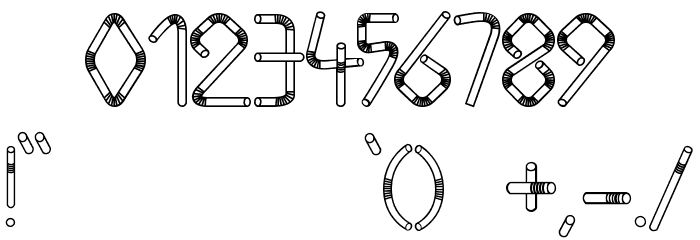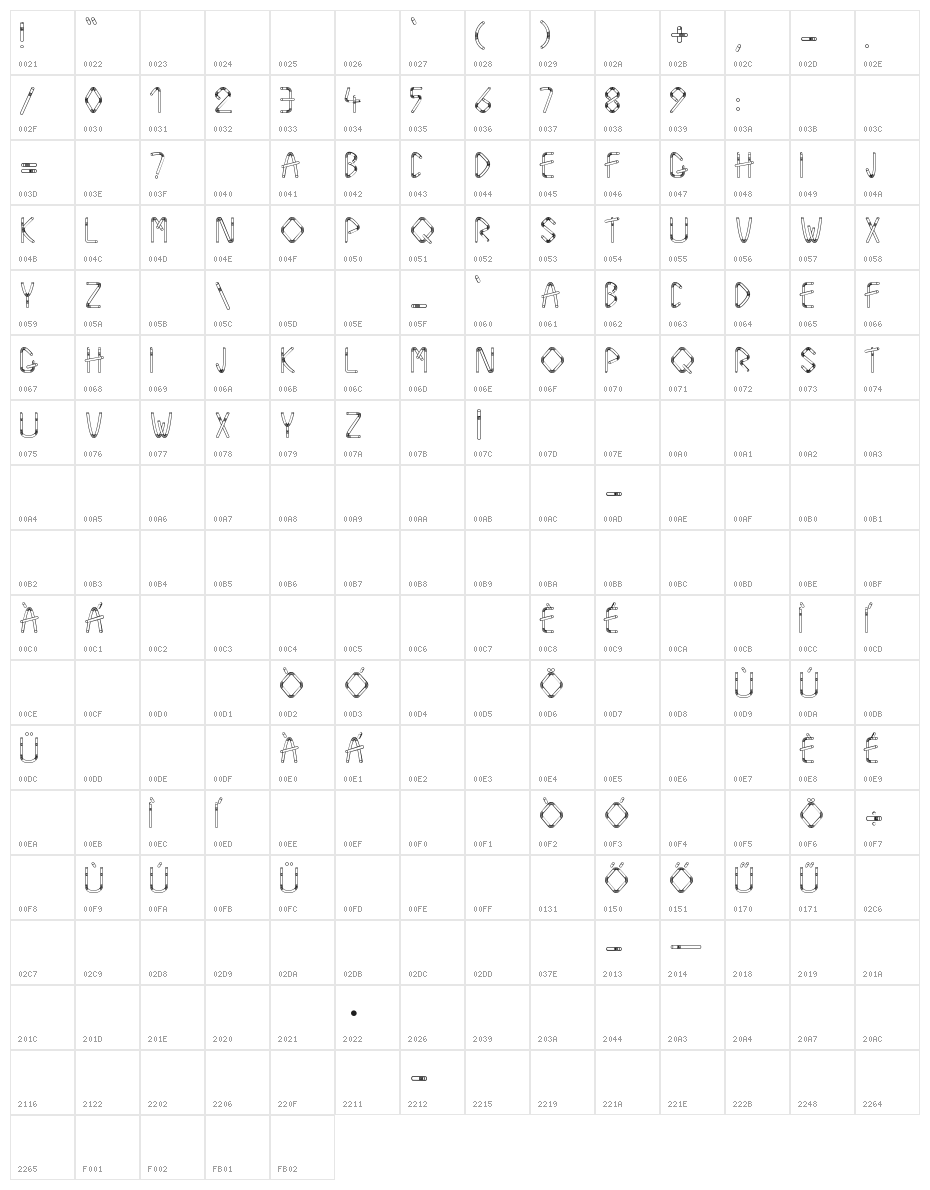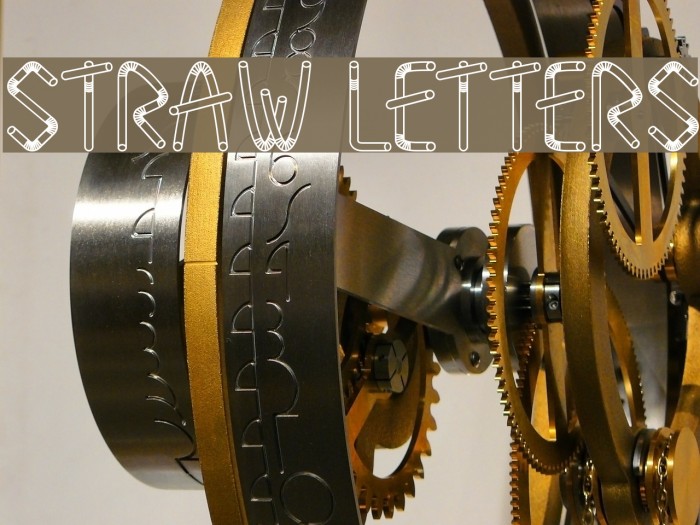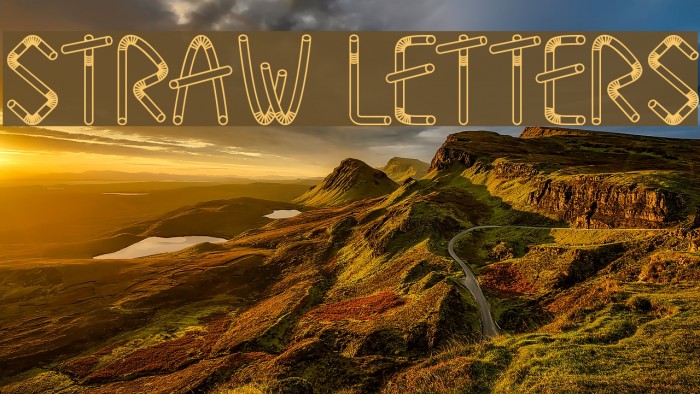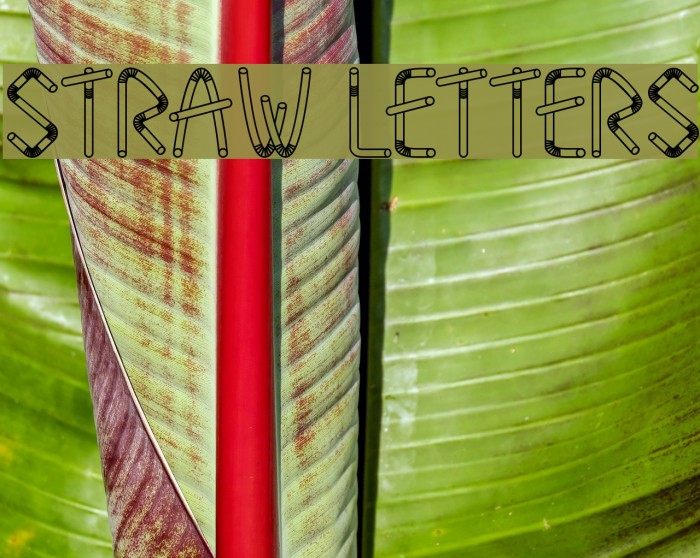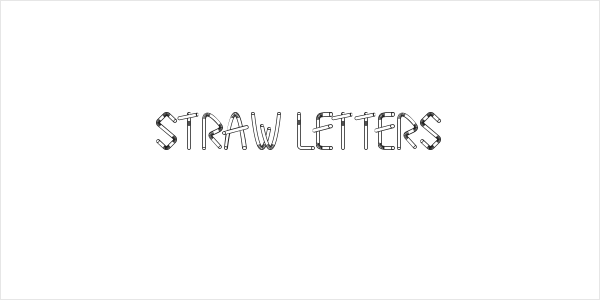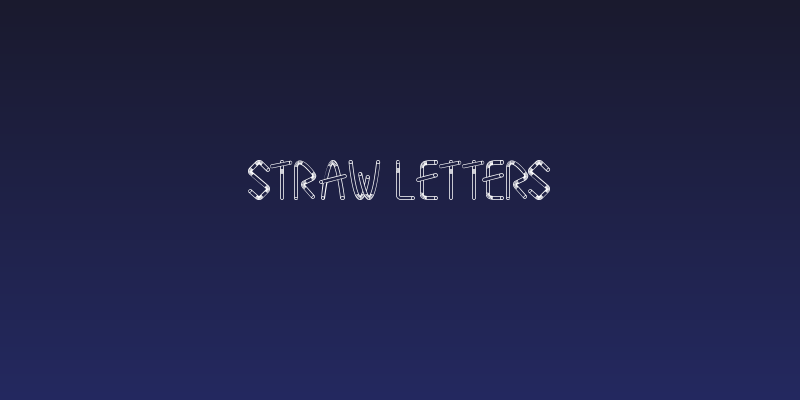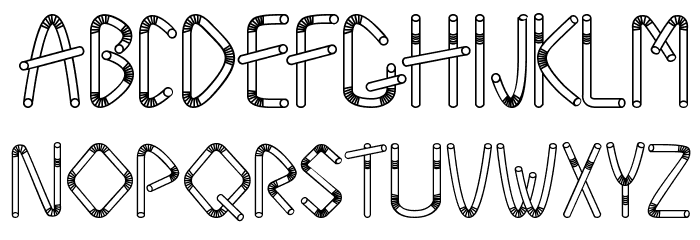
Straw Letters Font
Straw Letters Description
This font features a playful and creative design, resembling drinking straws bent into the shape of letters and numbers. Each character is constructed with a combination of straight and curved lines, mimicking the appearance of flexible straws. The font has a unique, hand-drawn quality with detailed line work that adds texture and depth. The characters are outlined, with some sections filled with diagonal lines to suggest shading or a three-dimensional effect. This font is highly decorative and stands out due to its unconventional and whimsical style.
| Proposed Projects | Ideal for children's book covers, playful branding, party invitations, and creative posters. |